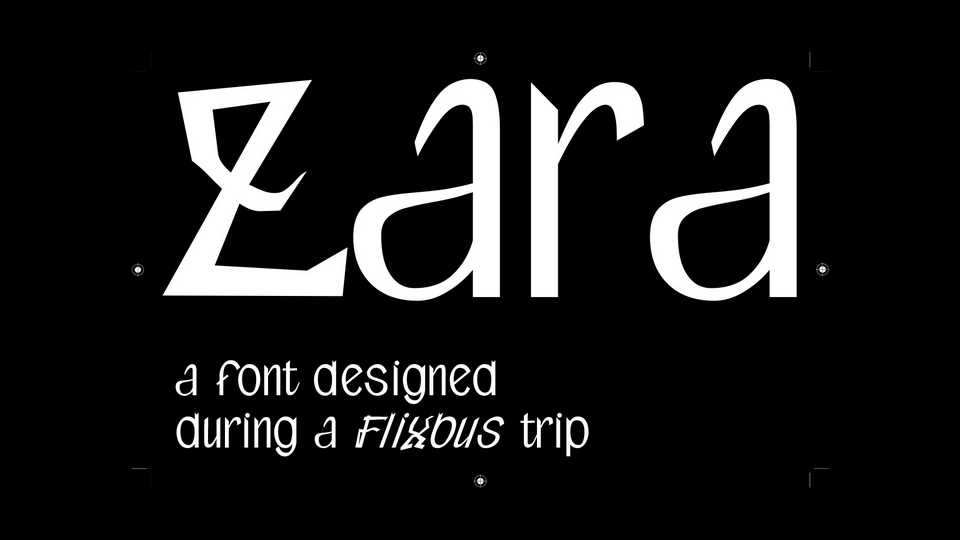
Download Zara typeface, a font family designed during a Flixbus trip, from Besançon (FR) to Prague (CZ). The font is available in two styles: Regular and Oblique.